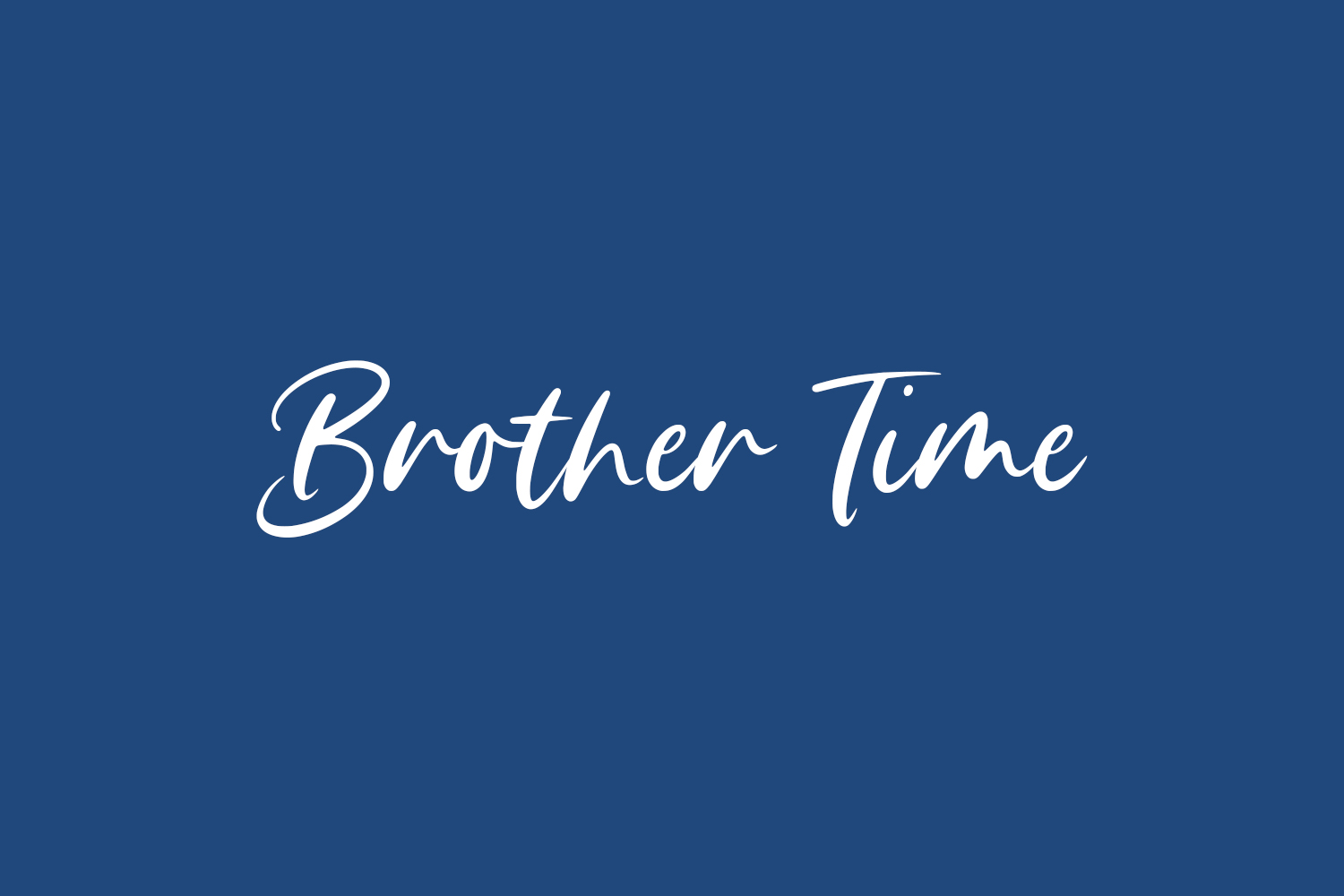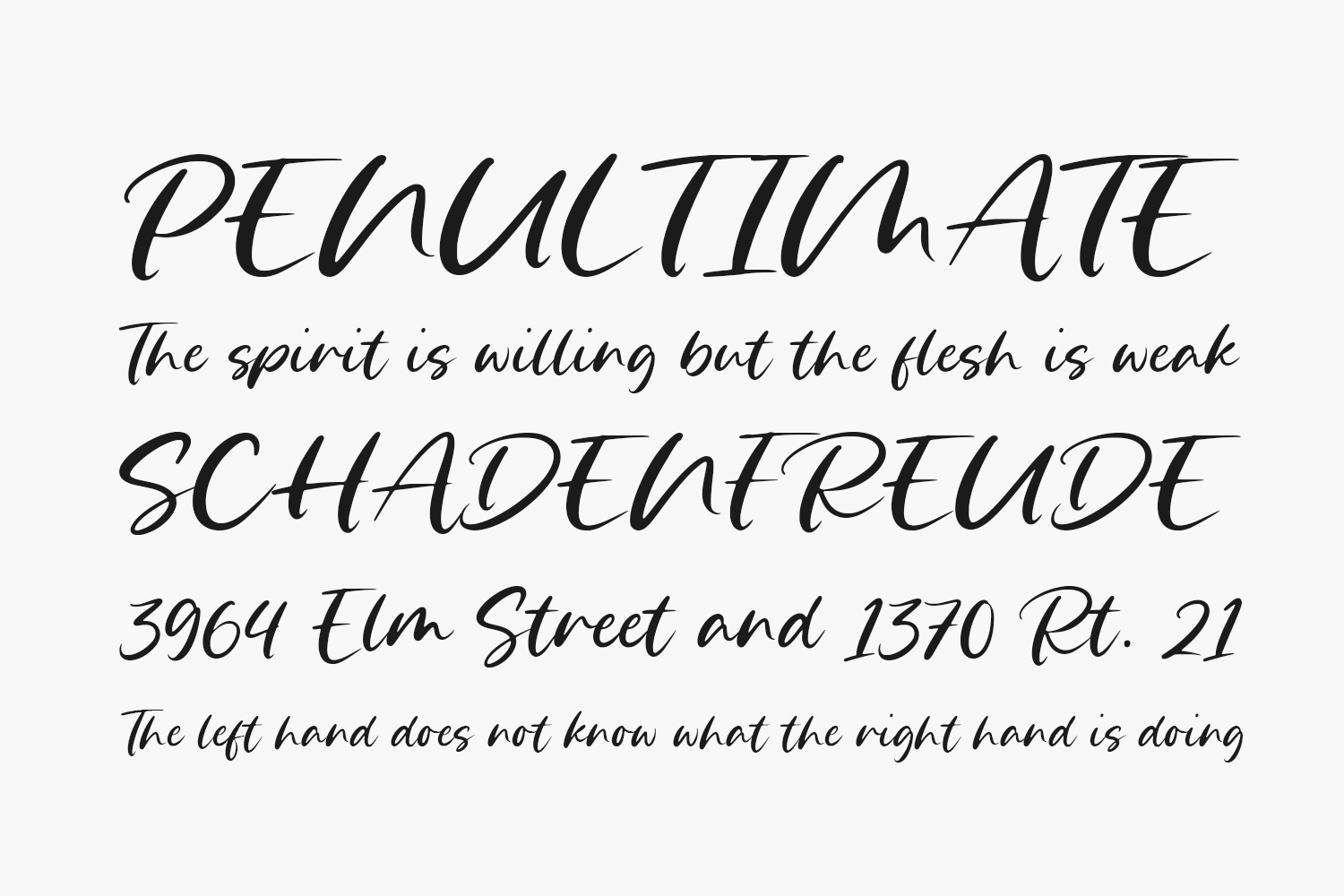
Brother Time Free Font the enchanting allure of Brother Time, a fluid handwritten font that embodies elegance and versatility, ideal for all your creative endeavors. With its unique and enduring style, let this font elevate your designs to new heights, leaving a lasting impression on your audience. Explore the endless possibilities and craft stunning visuals that capture the essence of timeless sophistication. Download the font for free if you need it for personal use or purchase the full version for commercial use.
Designed by Timur Type